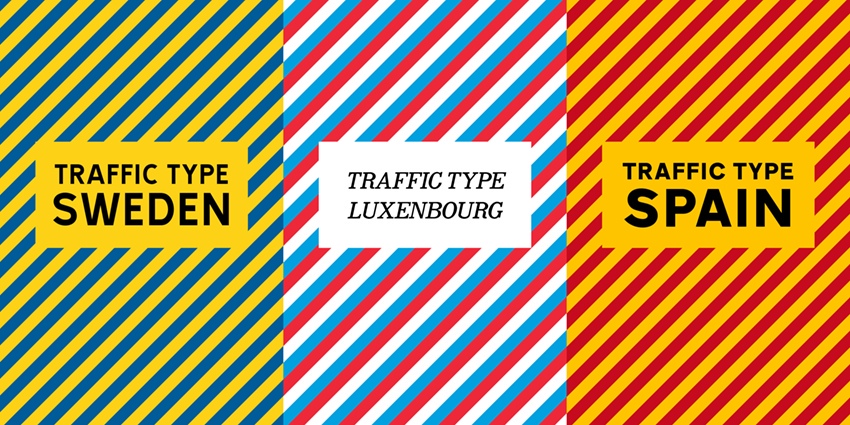
URW Traffic Type Font
URW Traffic Type Font is perfect for traffic management systems, highway signage applications, transportation authority communications, road safety campaigns, municipal traffic departments, public transit signage, parking facility graphics, vehicle registration materials, driving instruction manuals, traffic engineering presentations, transportation planning documents, and systematic projects that require clear, traffic-optimized typography with public safety authority and transportation professionalism.
What makes URW Traffic Type Font so exciting is its traffic safety precision and transportation authority that embodies the essential clarity and systematic reliability required for critical traffic communication and public safety signage. This typeface features highly legible letterforms with traffic-optimized characteristics and systematic proportions that ensure maximum readability in moving vehicle conditions, adverse weather, and the demanding environments where traffic signage must perform flawlessly to protect public safety. The font's traffic character and safety appeal make it perfect for transportation authorities and traffic management organizations that need typography as reliable and clear as their safety protocols and traffic control systems.
URW Traffic Type Font typically comes in multiple weights and styles including Light, Regular, Medium, Bold, and Black variations. Many versions also include traffic symbols, transportation icons, and safety-related decorative elements that enhance the font's traffic functionality and provide designers with comprehensive tools for creating professional, safety-compliant typography compositions that meet international traffic signage standards.
Whether you're designing traffic signage systems, transportation communications, or public safety materials, URW Traffic Type Font delivers exceptional traffic authenticity and safety clarity that serves drivers and pedestrians who depend on clear, instantly readable traffic information for safe navigation. Its systematic, highly optimized appearance works exceptionally well in both physical traffic signage and digital transportation applications, maintaining safety-critical legibility across all traffic management contexts.
The systematically engineered letterforms of URW Traffic Type Font showcase the ultimate expression of traffic typography and transportation safety principles. Each character has been optimized for maximum legibility in traffic environments while maintaining the systematic consistency that public safety requires, ensuring that your traffic communications remain crystal-clear and professionally reliable for critical transportation safety and traffic management applications.